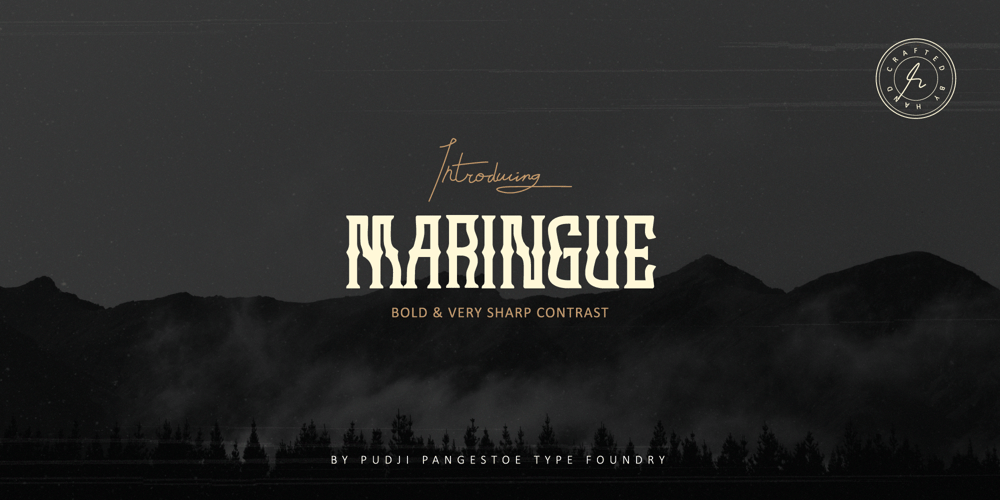
Maringue Font Family was designed by Faishal Mahdy and published by Shaltype Co. Maringue contains 1 styles and family package options. MARINGUE is Retro Western Font that is well-produced by hand and generate into a clean form, that will be best when used in any placement like logo, poster, t-shirts, or any display.Build manually, and reform into a clean Typeface. Natural stroke from original hand-lettering. It can be used for just Titles or even writing.In this font, you will get :Over 234 glyphsLigatures in OpenType featuresSupport for 66 languages.Get MARINGUE now!It will be best used for any design requirement, many fonts will come with a unique concept.Thank you!Best Regards, PUDJI PANGESTOE STUDIOS